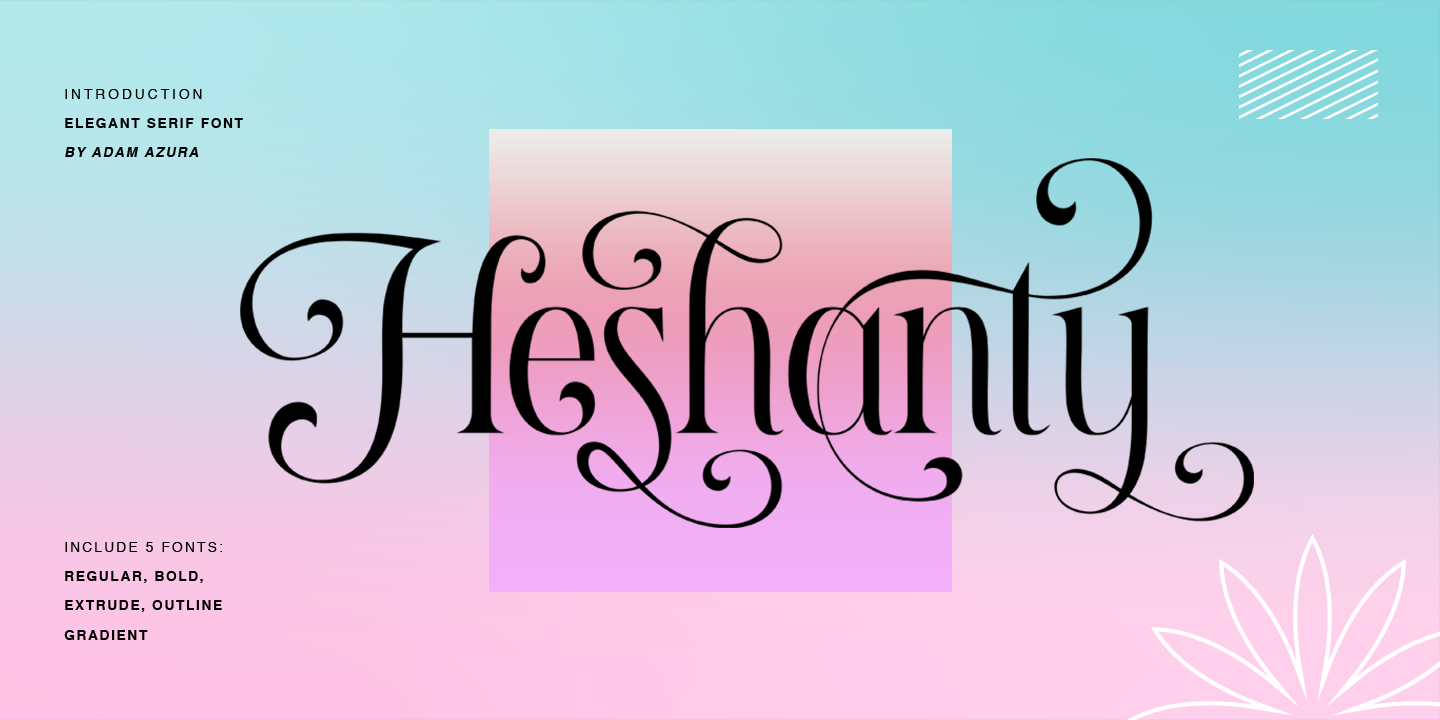
Heshanty Font is perfect for maritime adventure companies, vintage sailing expeditions, nautical folklore museums, sea shanty music venues, traditional boatbuilding workshops, coastal heritage centers, and authentic maritime entertainment establishments. This spirited typeface captures the rhythmic energy and seafaring tradition of sailor songs, bringing oceanic adventure and maritime heritage to any design project celebrating nautical culture and seafaring traditions.
What makes Heshanty Font exciting is its rousing combination of maritime rhythm and seafaring adventure spirit that perfectly embodies the camaraderie and oceanic tradition of sailor work songs. The font features flowing letterforms with wave-inspired curves and nautical character variations that evoke both the rolling motion of ships at sea and the communal spirit of traditional sea shanties. Its spirited character appeals to maritime enthusiasts while maintaining excellent readability for both nautical documentation and maritime entertainment applications.
The Heshanty Font family includes regular and bold weights with complementary script variations and maritime ornamental elements. The character set features nautical ligatures, sailing symbols, maritime alternates, and oceanic decorative accents that enhance the font's authentic appeal. Extended character support includes maritime symbols and sailing icons for genuine nautical heritage and seafaring tradition applications.
Whether you're designing maritime heritage brands, creating nautical entertainment materials, or developing seafaring cultural content, Heshanty Font Free Download provides exceptional maritime authenticity and versatility. This spirited typeface transforms ordinary text into adventurous oceanic experiences that celebrate seafaring traditions while establishing memorable brand recognition in competitive maritime tourism and nautical heritage marketplaces.